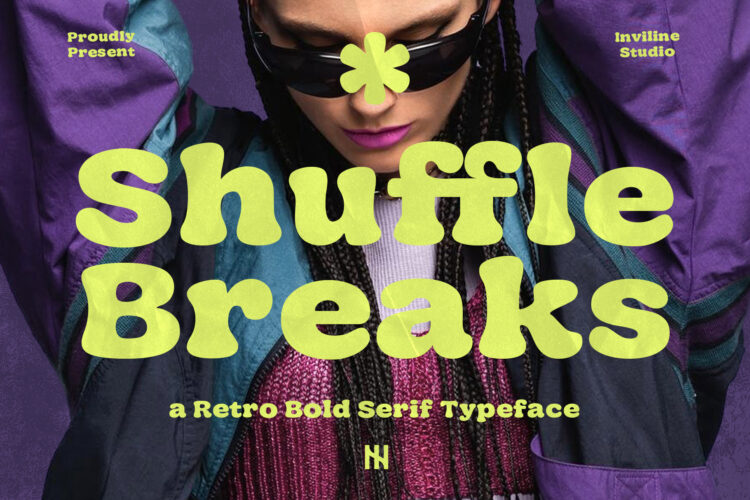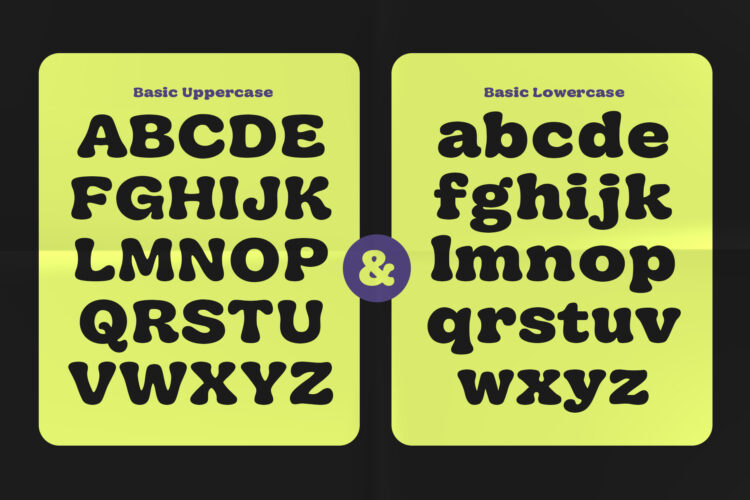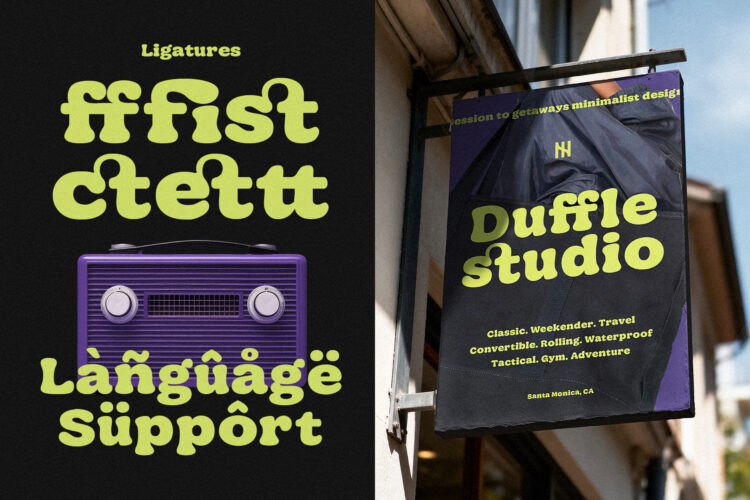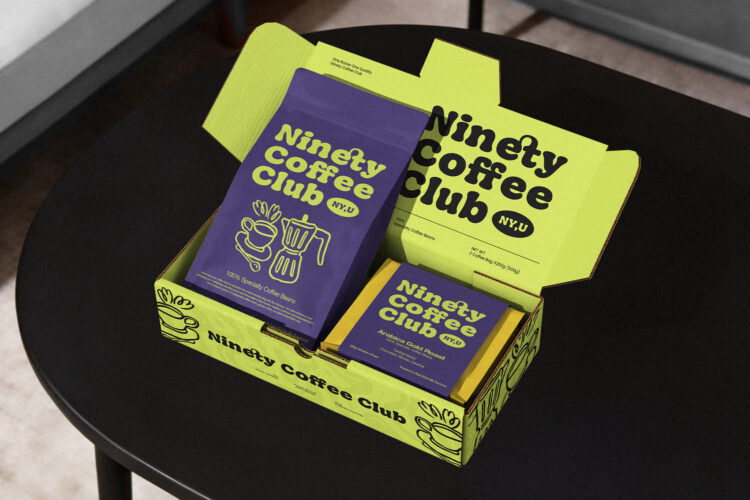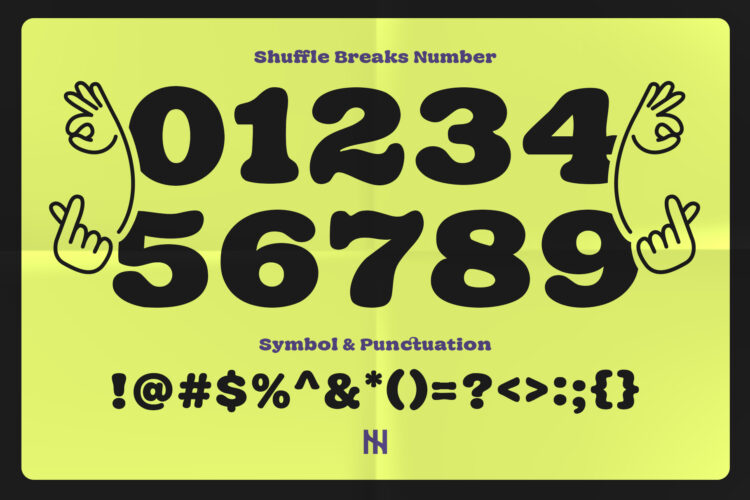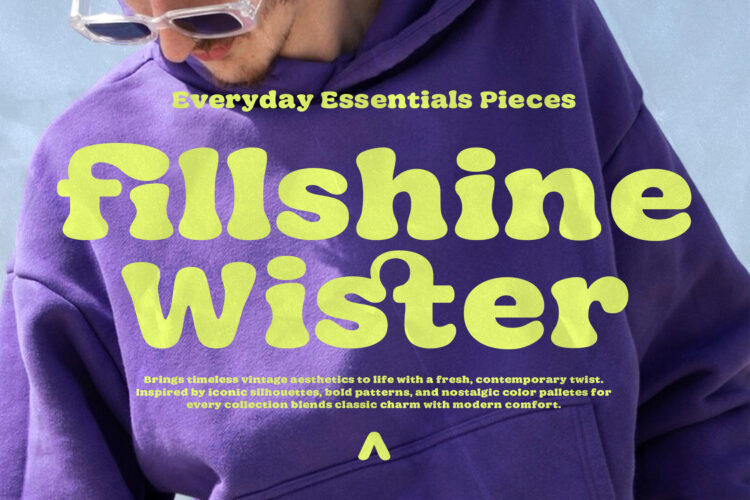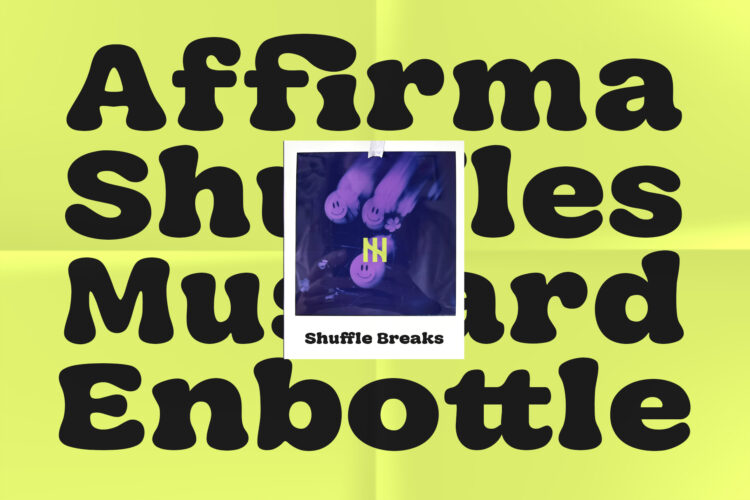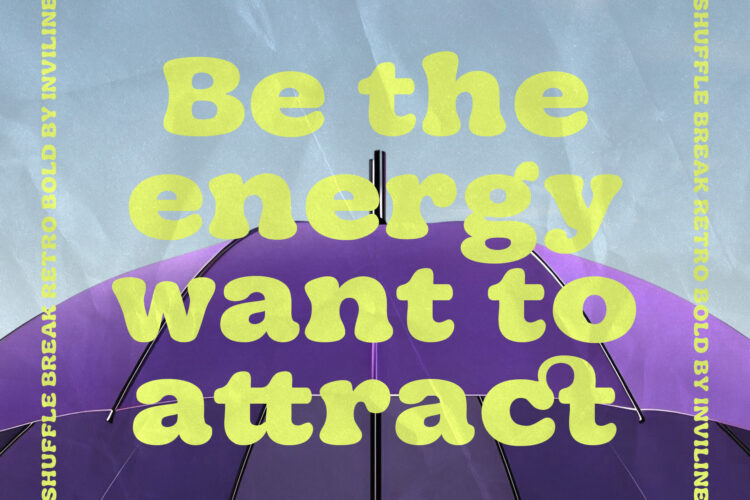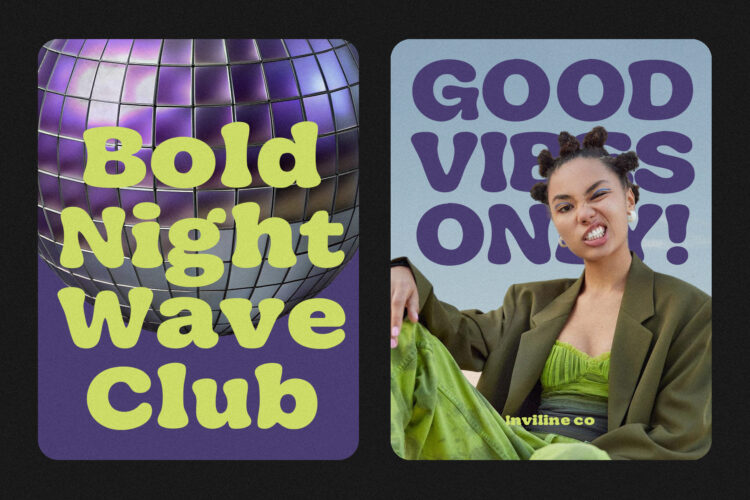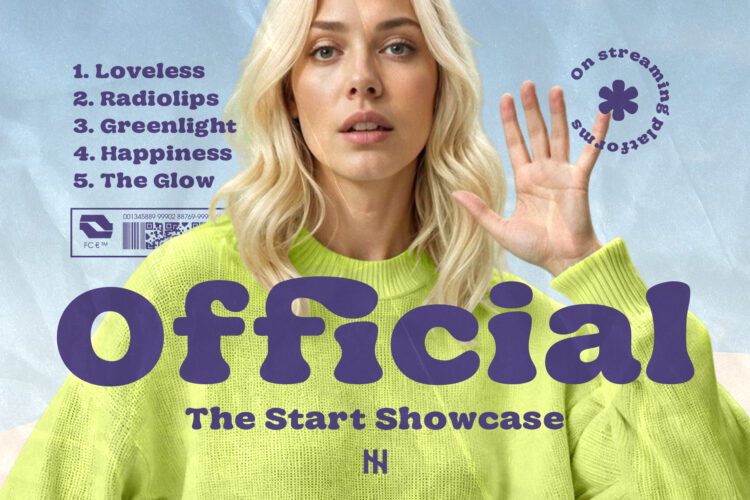
Shuffle Breaks is a bold retro display serif font inspired by nostalgic typography, playful 70s aesthetics, and expressive modern design. Its chunky letterforms, soft curves, and distinctive shapes create a fun, energetic, and memorable visual personality.
A bold and playful retro typeface designed to make headlines stand out. Shuffle Breaks combines vintage charm with a fresh contemporary attitude, making it ideal for expressive branding and eye-catching graphic design.
- Bold retro serif style
- Chunky rounded letterforms
- Playful vintage character
- Groovy 70s-inspired aesthetic
- Expressive display typography
- Ligatures: ff, fi, st, etc.
- Multilingual Support: À, Á, Â, Ç, É, Ñ, Ö, Ü, etc.
- Numbers, punctuation & symbols
- Perfect for display and headline use.